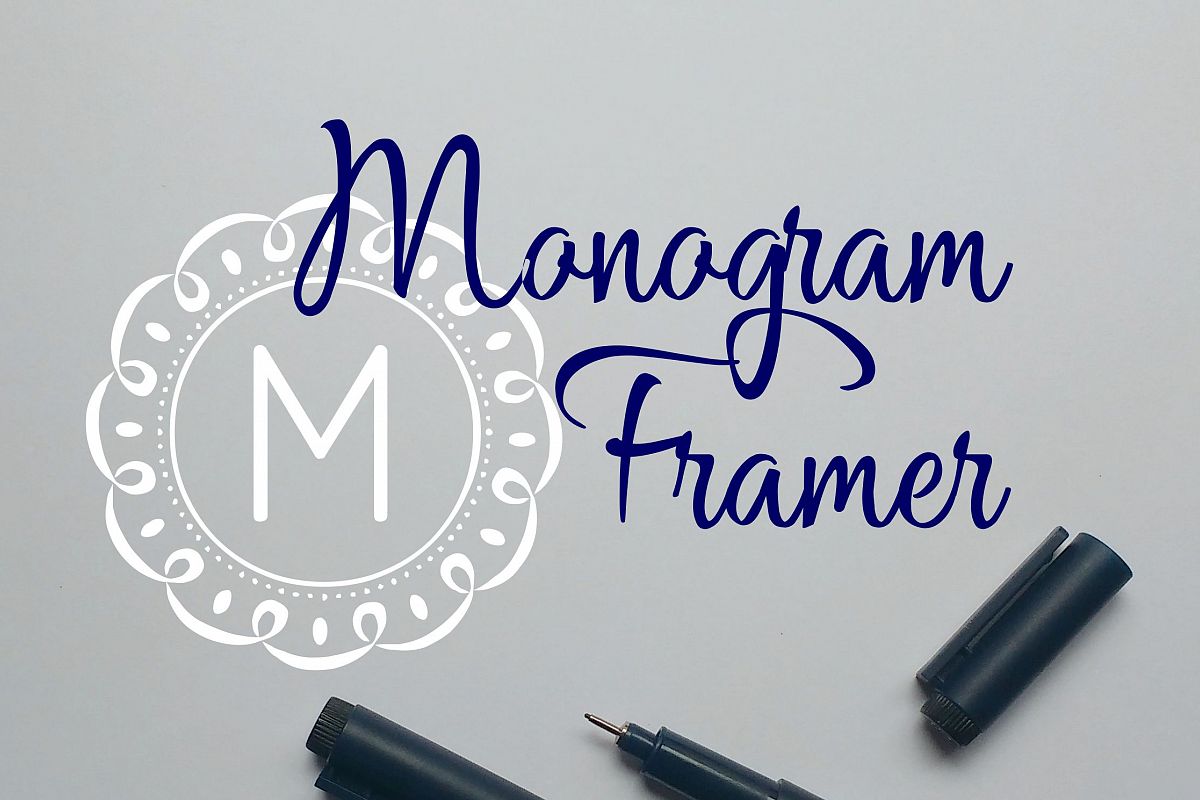
Monogram Framer
With this font you'll be able to create a circle framed monogram in just 2 easy steps!
Step 1 - Type a number (choose a number 0-9 to select a frame)
Step 2 - Type your letter (without space)
and your letter will be placed perfectly in the center of the frame.